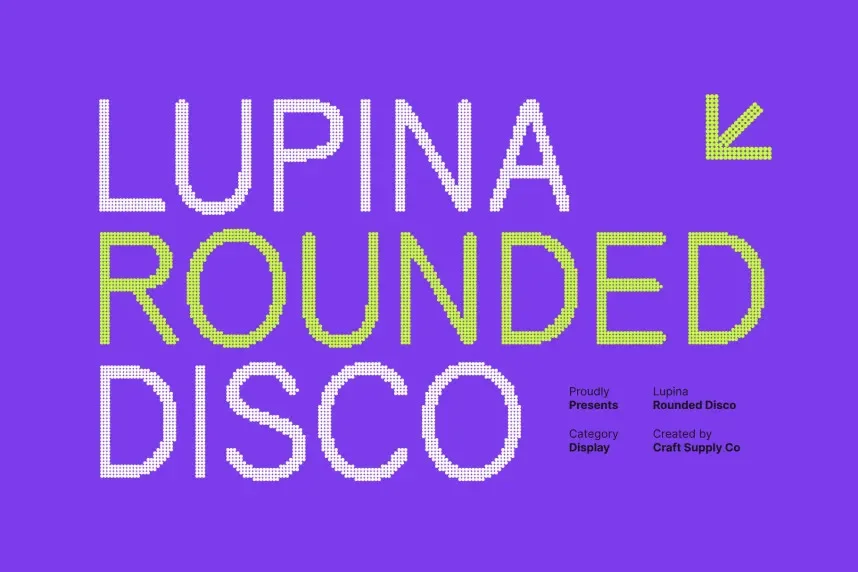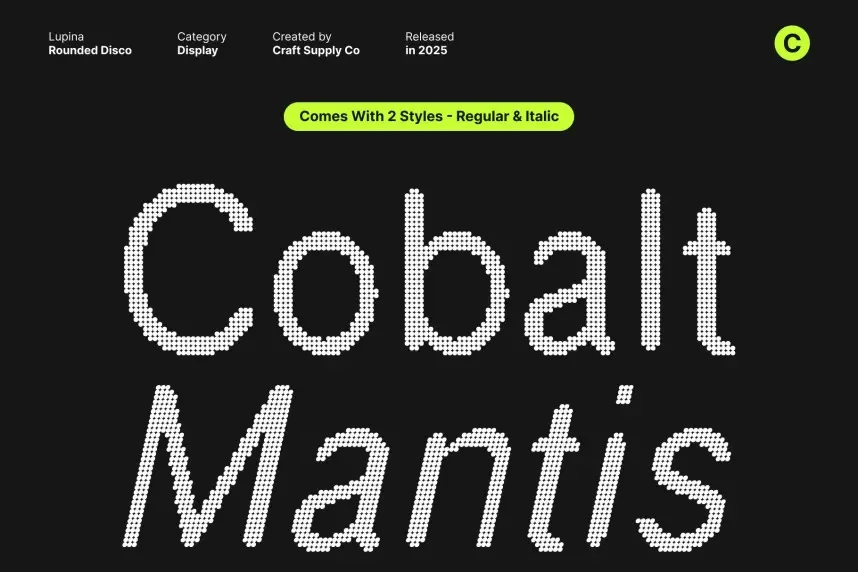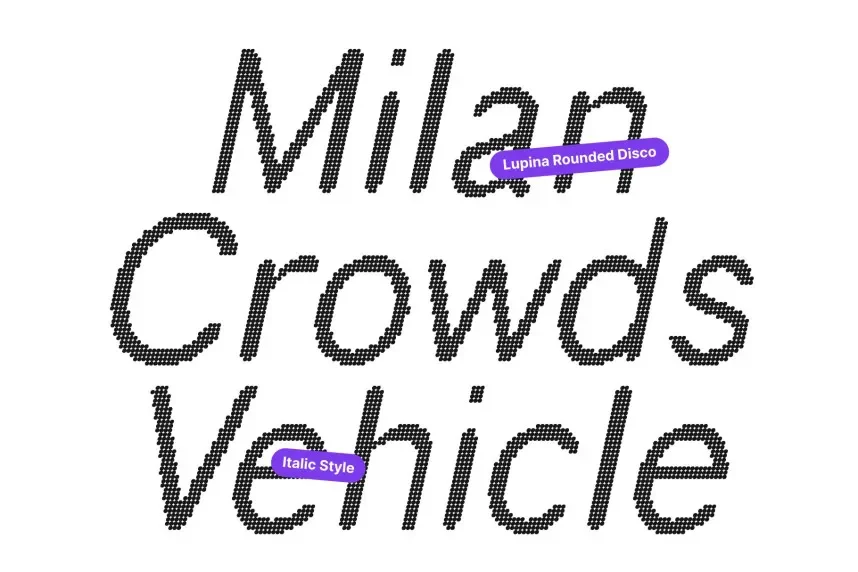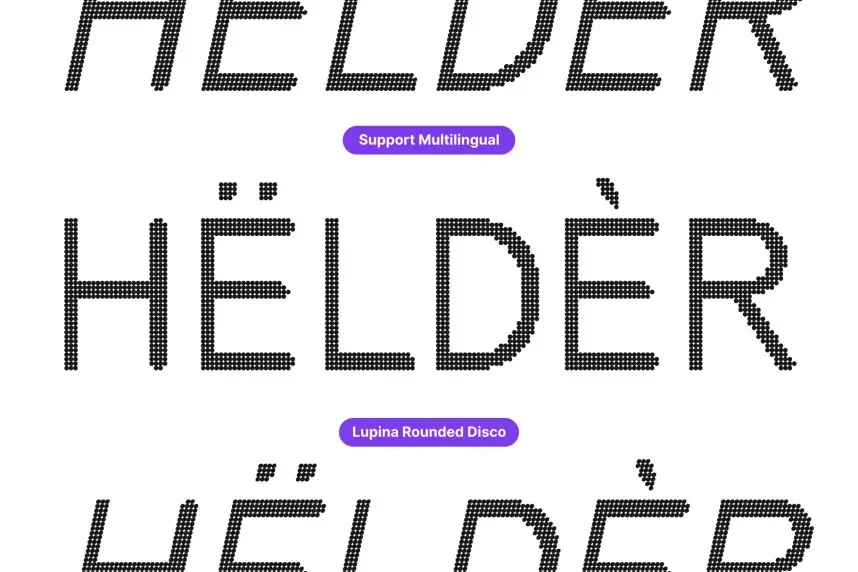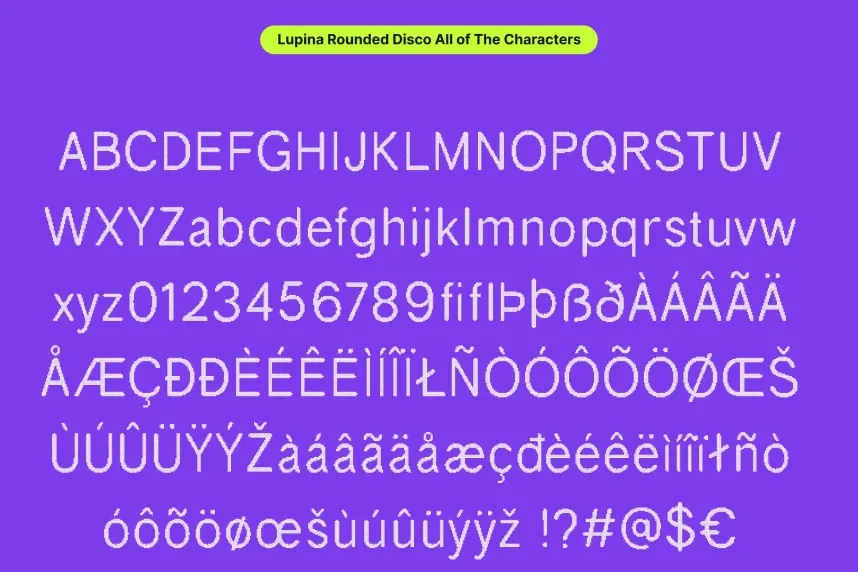
Lupina Rounded Disco Font is a playful, rounded display typeface with a retro touch. Its smooth curves and bold design make it perfect for projects that require a lighthearted, fun feel, such as party flyers, logos, and branding materials.